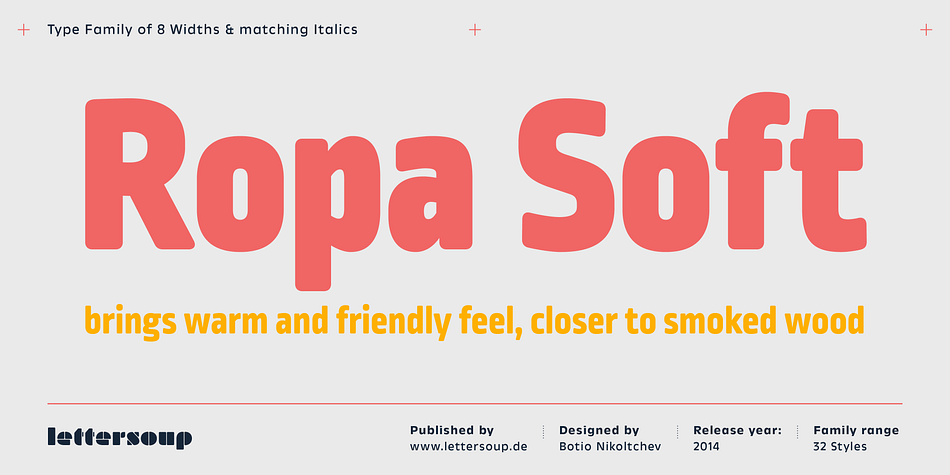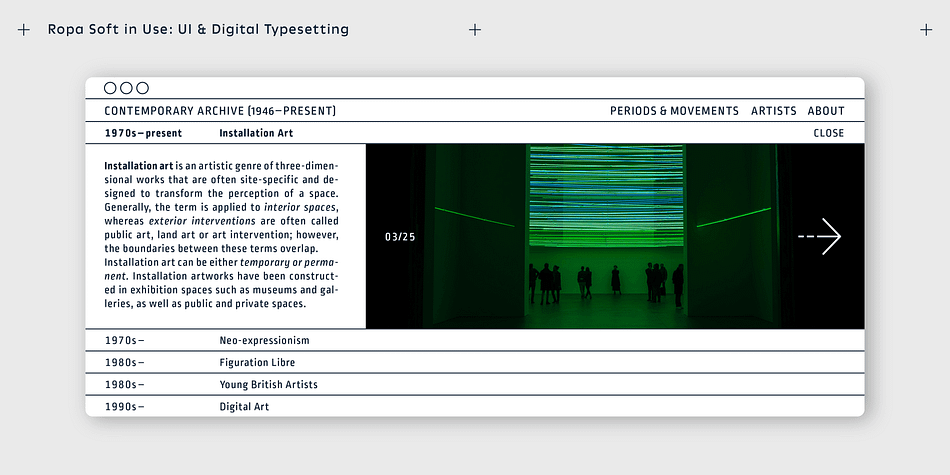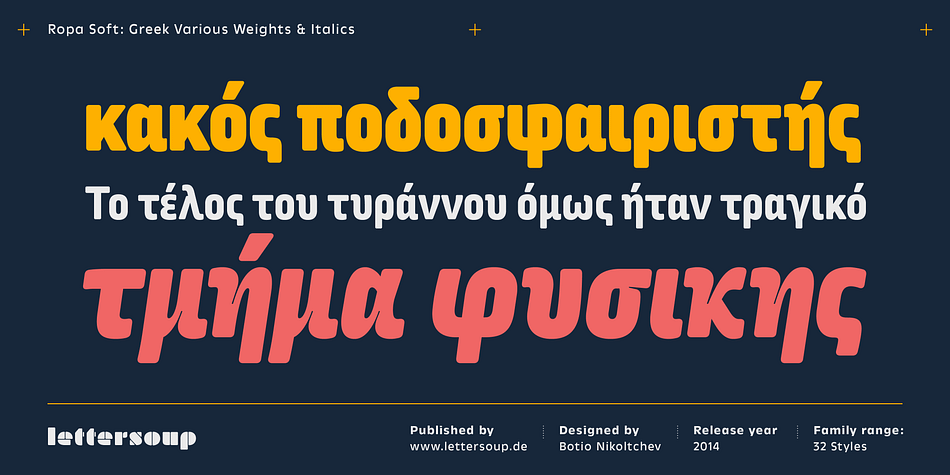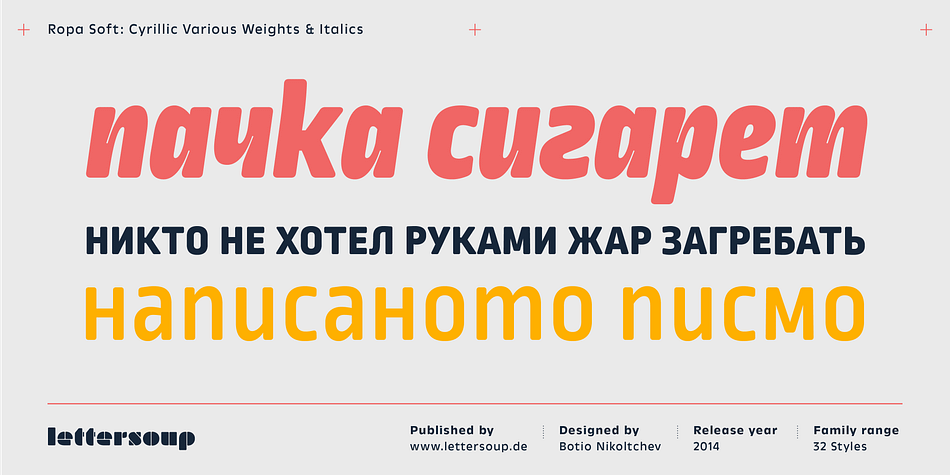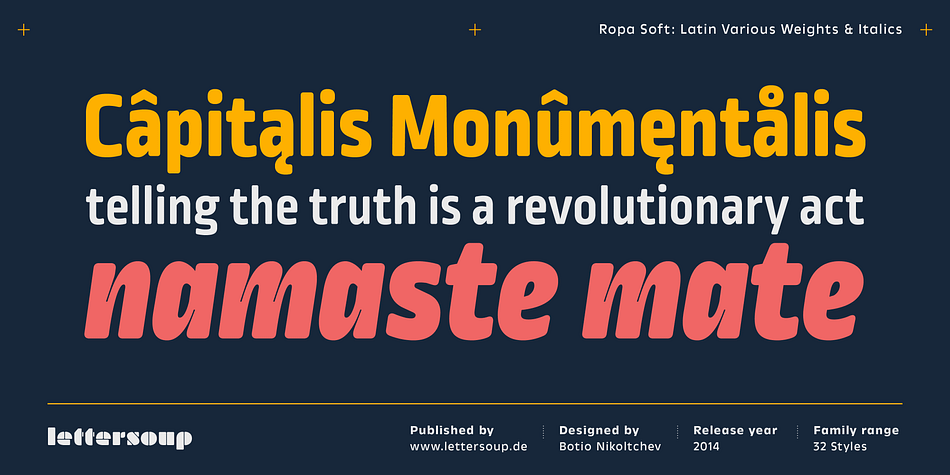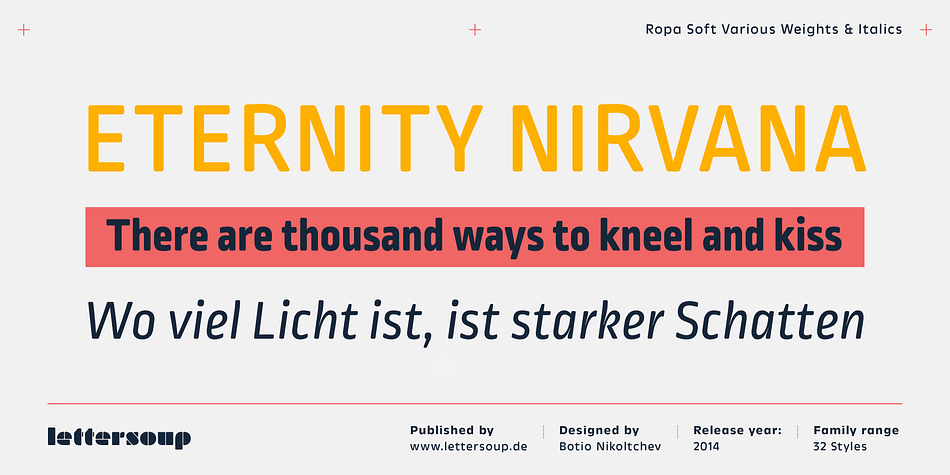
Designed by Botio Nikoltchev, Ropa Soft Pro is a sans serif and display sans font family. This typeface has thirty-two styles and was published by Lettersoup.
Ropa Soft Pro is Ropa Sans Pro’s charming sister. While Ropa Sans is cool and somewhat technical, almost like brushed steel, the new Ropa Soft Pro family brings a warm and friendly feel, closer to smoked wood, through its rounded corners. The medium weights of Ropa Sans Pro serve well in body text, while the thinner and bolder styles make an excellent choice for headlines.
Fonts from the Ropa Soft and Sans families can be used together to create a richer mix, and the humanistic italics round up the typographic system with additional quirky flavor.
Ropa Soft Pro provides advanced typographical support with features such as case-sensitive forms, fractions, super and subscript characters, and stylistic alternates. It comes with a complete range of old style and lining figures, witch are in tabular and proportional widths.
In addition to an extensive coverage of Latin-based languages, Ropa Soft Pro provides essential support for the Cyrillic and Greek writing systems.